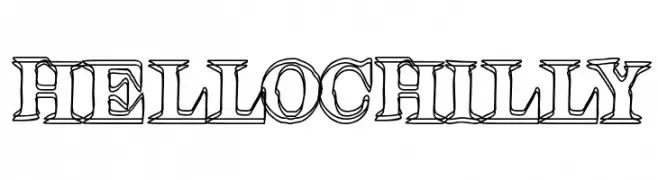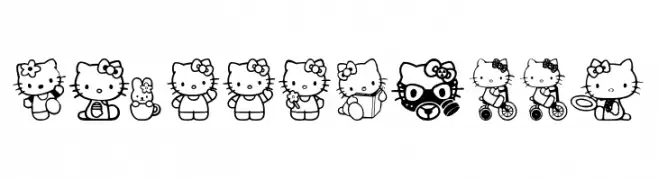
A bold, angular font with a modern, geometric style.
A bold, playful font with a distressed, vintage texture.
A bold, playful handwritten font with smooth, rounded letters.
A bold, cracked font with a distressed, edgy appearance.
An elegant script font with flowing, cursive strokes and sophisticated flourishes.
A modern, geometric font with thin, uniform lines and rounded edges.
Cartoon-themed decorative font with playful outlined character illustrations.
A bold, dripping font with a distinctive, eerie appearance.
A bold, distressed font with a vintage, textured style.
A bold, decorative font with a unique outline effect and strong serifs.